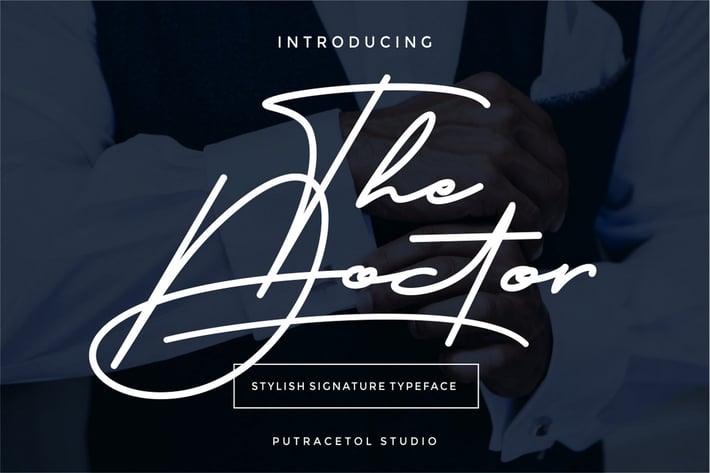
The Doctor Signature - Stylistic Signature Font
The Doctor
Introducing a Stylistic Signature Typeface called " The Doctor ",
The Doctor is a handwritten signature with natural ,classy and stylish flow.
The Doctor best uses for signature, heading, cover, branding, invitation, label, poster, logos, quotes, product packaging, header, merchandise, social media & greeting cards and many more.
Comes with feature :
Alternate
* Number, Punctuation And Symbols